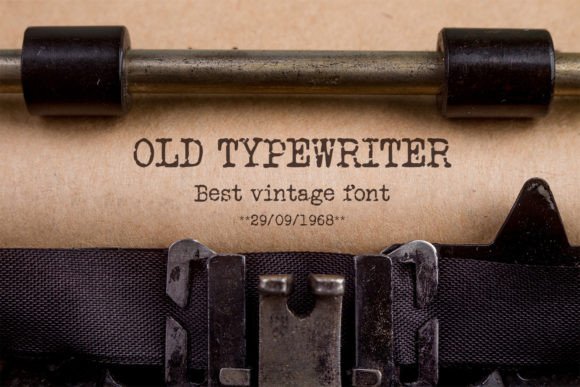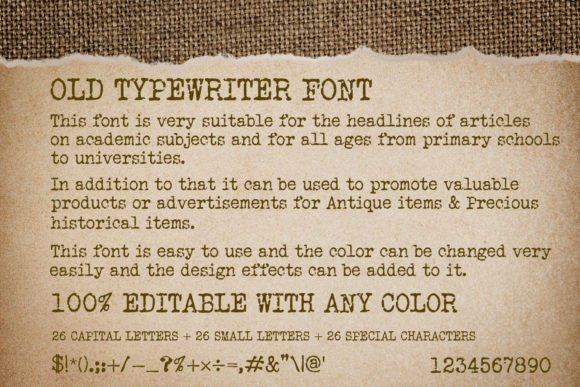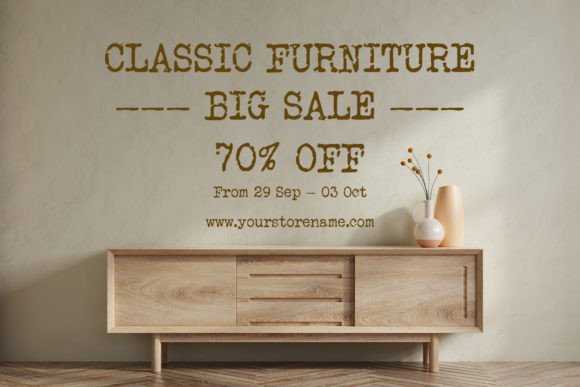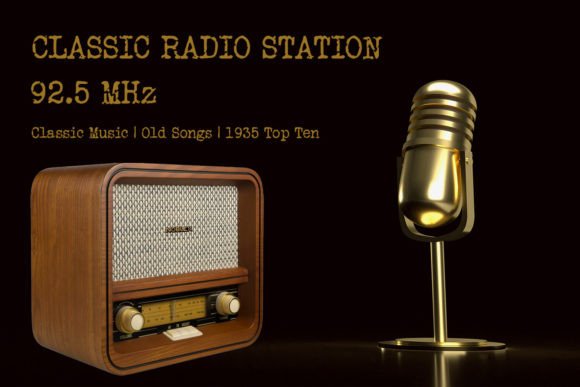
Old Typewriter: A Charming Retro Slab Serif Font
Old Typewriter is a cute, thematic typewriter font that brings back memories of old mechanical typewriters. This slab serif is perfect for giving your projects a retro or forensic style. You can use it in various creations like newspapers, headlines, posters, magazines, t-shirt prints, wall art, and more.
Key Features of Old Typewriter
- Retro Design: Captures the charm of old mechanical typewriters.
- Slab Serif Style: Features the distinctive thick, block-like serifs typical of typewriter fonts.
- Versatile Use: Suitable for a wide range of creative projects.
- Thematic Appeal: Adds a nostalgic or forensic touch to designs.
Best Uses for Old Typewriter
Old Typewriter works especially well for:
- Vintage-style newspaper layouts
- Eye-catching headlines and titles
- Retro poster designs
- Nostalgic magazine spreads
- Unique t-shirt prints
- Stylish wall art creations
- Forensic-themed design projects
When using Old Typewriter in your designs, keep these tips in mind:
- Use for headlines or short text to showcase its retro typewriter style.
- Try different sizes to highlight the font’s unique features.
- Pair with modern sans-serif fonts for contrast in longer texts.
- Experiment with textures to enhance the vintage feel.
To sum up, Old Typewriter is a great choice for designers who want to add a touch of nostalgia to their work. Its cute and thematic style makes it perfect for projects that need a retro or forensic look. Whether you’re creating newspaper layouts, designing posters, or making unique t-shirts, Old Typewriter offers the perfect blend of vintage charm and modern usability.
Moreover, Old Typewriter’s distinctive design allows it to stand out in various contexts. For instance, from wall art to magazine spreads, this font can elevate your projects with its nostalgic style. Also, its slab serif structure ensures good readability, making it suitable for both decorative and functional uses.
In conclusion, Old Typewriter truly captures the essence of vintage typewriter fonts while offering versatility for modern design needs. Its ability to work well in different applications shows how it can fit various creative projects. Therefore, for those wanting to add a touch of retro charm to their designs, Old Typewriter can enhance themed creations with its unique style. Ultimately, it’s an ideal choice for designers aiming to make a nostalgic, eye-catching impact across a wide range of creative projects.